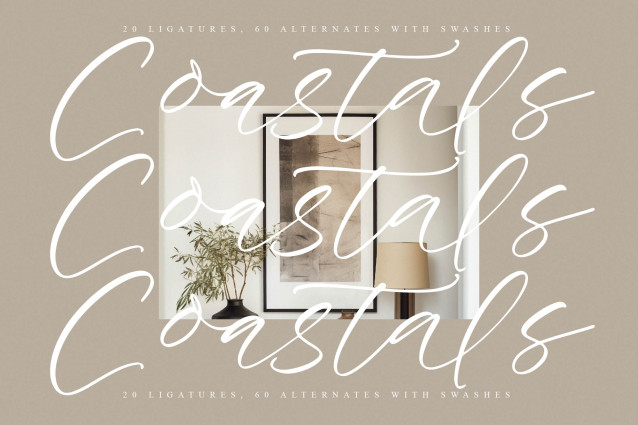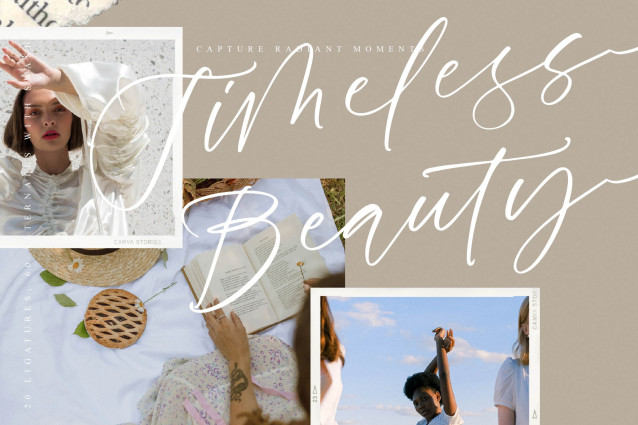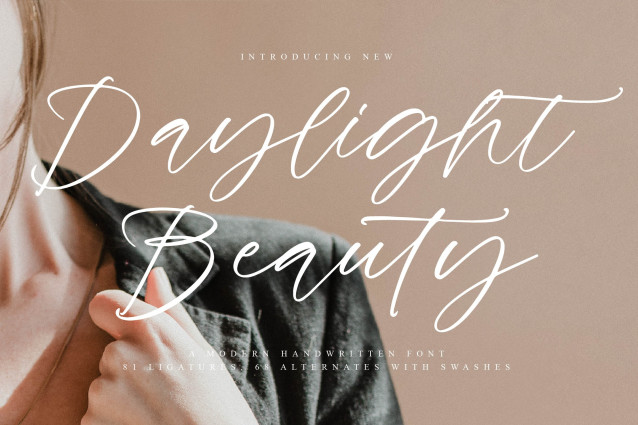
Daylight Beauty is a modern handwritten script font that radiates elegance, femininity, and contemporary charm. Carefully crafted with smooth flowing strokes, graceful curves, and stylish swashes, this typeface brings a sophisticated handwritten feel to every design. Inspired by modern signature lettering and luxury calligraphy aesthetics, Daylight Beauty combines natural handwritten movement with refined typography details to create a visually stunning and timeless script style. Its balanced proportions, expressive curves, and fluid rhythm deliver typography that feels elegant, authentic, and effortlessly luxurious.
Featuring a beautiful collection of 81 ligatures and 68 stylistic alternates with elegant swashes, Daylight Beauty offers endless creative possibilities for creating unique and eye-catching typography compositions. The carefully crafted OpenType features allow designers to build personalized lettering styles while maintaining excellent readability and visual harmony. Whether you’re designing wedding invitations, fashion campaigns, cosmetic packaging, social media graphics, editorial layouts, or signature logos, Daylight Beauty adds a refined and timeless handwritten touch that instantly elevates the overall aesthetic of your work. Elegant yet versatile, this typeface is thoughtfully designed for creatives who appreciate premium branding, artistic expression, and sophisticated handwritten beauty.